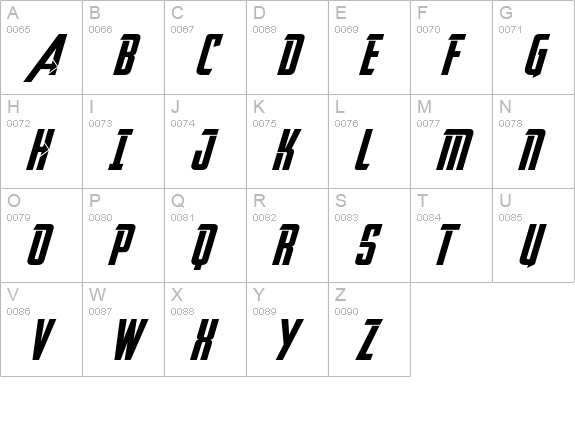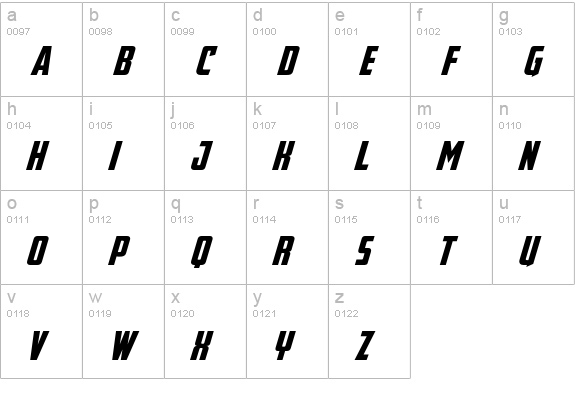
Avengeance Heroic Avenger Normal Font Details
Avengeance Heroic Avenger Normal is the standard, neutral variant in the Avengeance typeface family \xE2\x80\x94 well suited to general body text, paragraphs, and standard typographic work.
Introducing Avengeance Heroic Avenger Normal font - the epitome of power, strength, and justice. This striking typeface embodies the spirit of a heroic avenger, ready to fight for what is right. With its bold and commanding presence, Avengeance Heroic Avenger Normal font captures attention and demands to be noticed. This font is not just any ordinary typeface, it is a symbol of resilience and determination. Each letter is meticulously crafted to exude a sense of might and purpose, making it the perfect choice for projects that require an impactful and heroic touch. From movie posters to comic book titles, Avengeance Heroic Avenger Normal font adds an extra layer of intensity to any design. But what sets this font apart is that it is freely available to download at FontsMarket.com. Yes, you read that right - Avengeance Heroic Avenger Normal font can be yours without any cost. Embracing the concept of accessibility, FontsMarket.com believes in providing high-quality fonts to designers and enthusiasts around the world. And now, you have the opportunity to harness the power of Avengeance Heroic Avenger Normal font in your designs, without breaking the bank. So, what are you waiting for? Unleash your creativity and take your designs to heroic heights with Avengeance Heroic Avenger Normal font. Download it for free at FontsMarket.com and let your imagination soar. Whether you're working on a logo, a poster, or a website, this font will make a bold statement and leave a lasting impression. Don't miss out on this incredible opportunity to elevate your design game with Avengeance Heroic Avenger Normal font - the ultimate weapon in your creative arsenal.